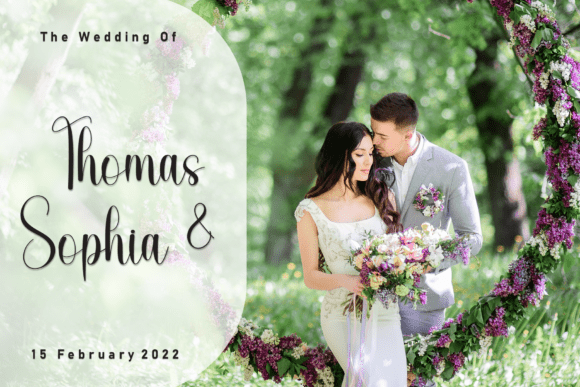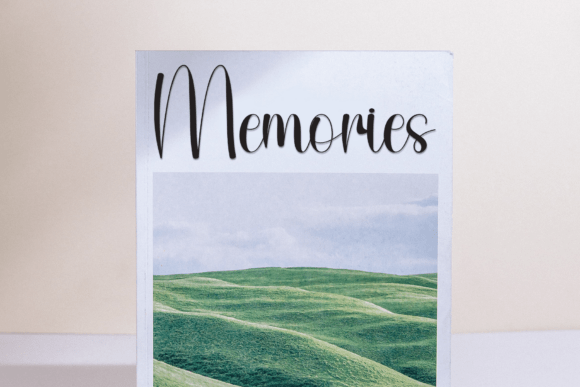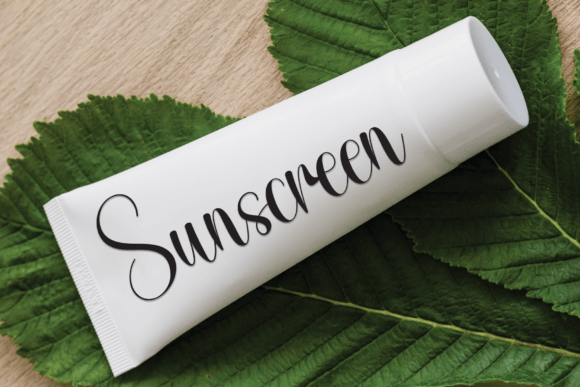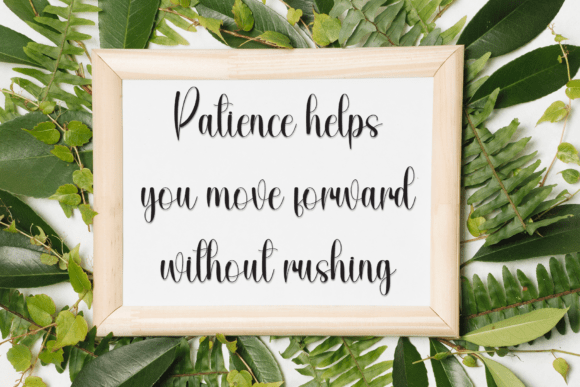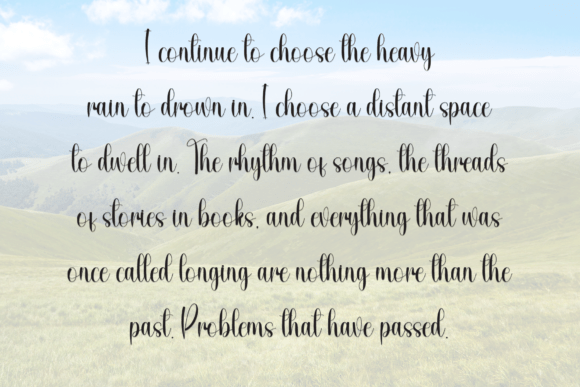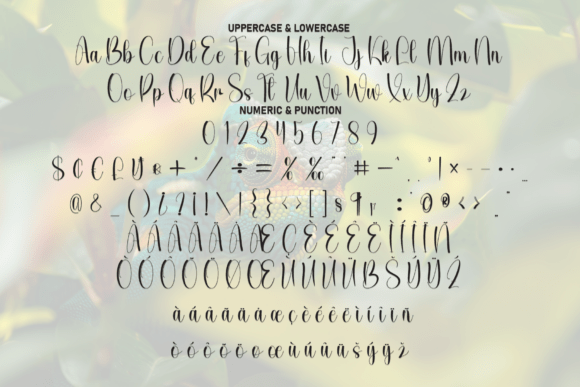
Cameleon Font: Adding a Dash of Allure and Endearment to Your Designs
Are you tired of using the same old fonts in your design work? Do you want to add a touch of personality and whimsy to your projects? Look no further than the Cameleon Font, a delightful handwritten display font that is sure to bring a smile to your face. With its joyful and captivating spirit, this font is perfect for wedding invitations, greeting cards, and any design element that needs a cheerful twist.
The Perfect Adornment for Your Designs
The Cameleon Font is more than just a font – it’s a way to add a dash of happiness to your designs. Its unique and playful style is sure to make your projects stand out from the crowd, and its versatility makes it suitable for a wide range of applications. Whether you’re a designer, crafter, or DIY enthusiast, this font is sure to become a favorite in your toolkit.
What Makes Cameleon Font So Special?
So, what sets the Cameleon Font apart from other fonts on the market? Here are just a few of its standout features:
- Handwritten display font: The Cameleon Font has a personal, handwritten feel that adds a touch of warmth and personality to your designs.
- Joyful and captivating spirit: This font radiates a sense of fun and playfulness, making it perfect for projects that need a cheerful twist.
- Layers your design work with allure and endearment: The Cameleon Font has a way of making your designs feel more engaging and charming, drawing the viewer in and making them want to learn more.
- Ideal for wedding invitations and greeting cards: The elegant, yet playful style of this font makes it perfect for special occasions and celebrations.
How to Use Cameleon Font in Your Designs
The Cameleon Font is incredibly versatile, and can be used in a wide range of design applications. Here are a few ideas to get you started:
- Wedding invitations: Add a touch of elegance and whimsy to your wedding invitations with the Cameleon Font.
- Greeting cards: Use this font to create cheerful and playful greeting cards for birthdays, holidays, and other special occasions.
- Social media graphics: Add some personality to your social media graphics with the Cameleon Font.
- Branding and packaging: Use this font to add a touch of whimsy and playfulness to your branding and packaging designs.
Why Designers and Crafters Love Cameleon Font
Designers and crafters alike love the Cameleon Font for its unique and playful style. Here are just a few reasons why:
- Easy to read: Despite its playful style, the Cameleon Font is easy to read, making it perfect for body text and headlines.
- Highly versatile: This font can be used in a wide range of design applications, from digital projects to print materials.
- Unique and distinctive: The Cameleon Font has a unique and distinctive style that sets it apart from other fonts on the market.
In conclusion, the Cameleon Font is a delightful handwritten display font that is sure to add a dash of allure and endearment to your designs. With its joyful and captivating spirit, this font is perfect for wedding invitations, greeting cards, and any design element that needs a cheerful twist. Whether you’re a designer, crafter, or DIY enthusiast, this font is sure to become a favorite in your toolkit. So why wait? Download the Cameleon Font today and start creating enchanting visuals that communicate in the enchanting dialect of fun!